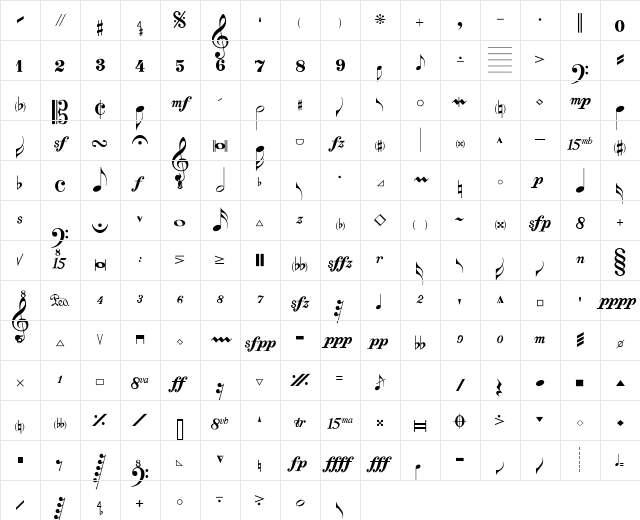
Complete Maestro Wide Regular glyph index. Displaying only characters natively supported by Maestro Wide Regular font.
Maestro Wide is a composed and adaptable typeface that performs quietly and consistently across a wide range of design contexts.